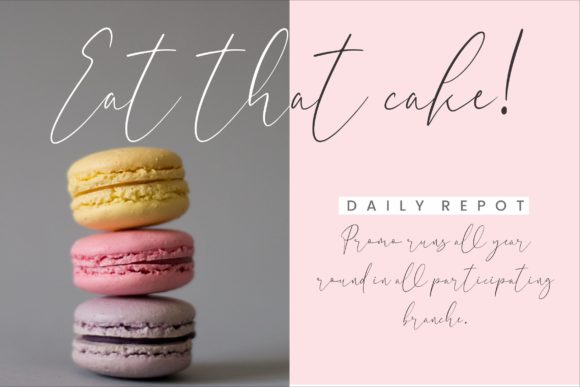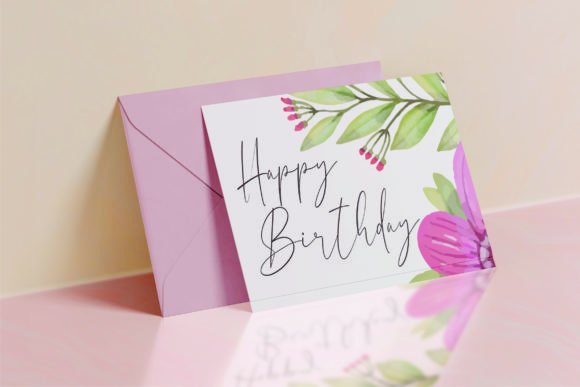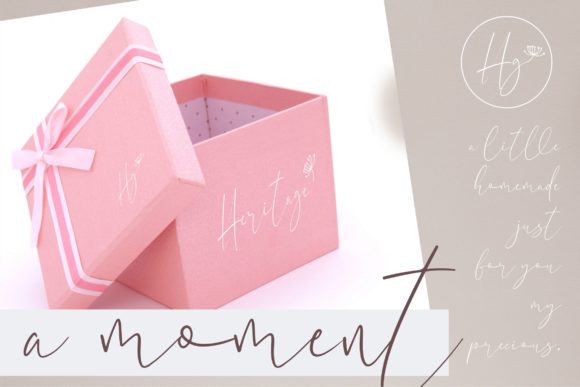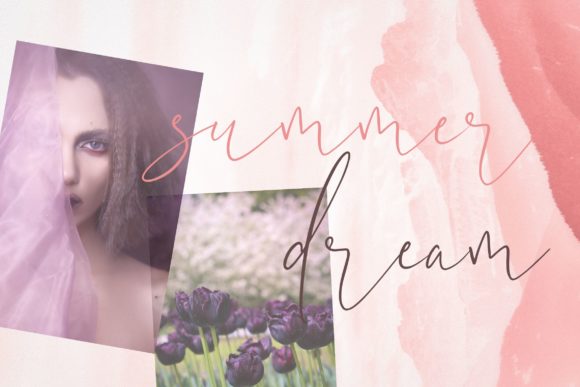
About Bathiella Font
Bathiella is a thin and elegant handwritten font. Bathiella is perfect for branding projects, logo, wedding designs, social media posts, advertisements, product packaging, tshirt design, product designs, label, photography, watermark, invitation, stationery and more. Get creative with this font!